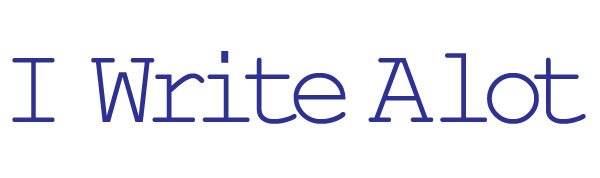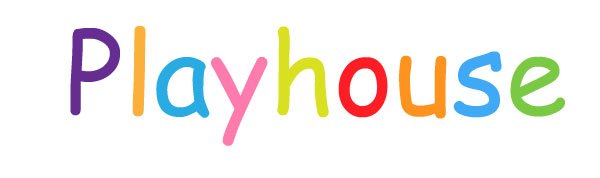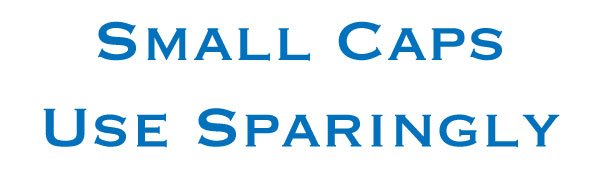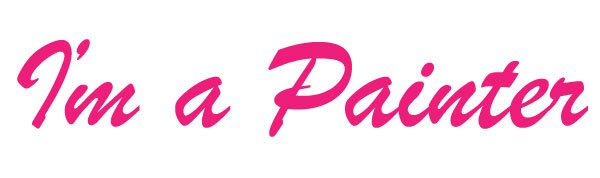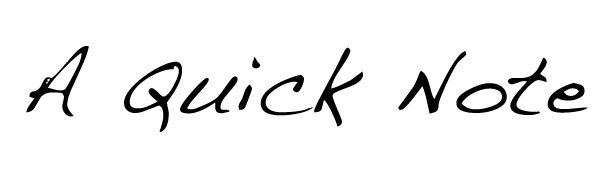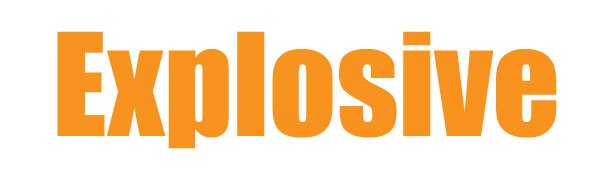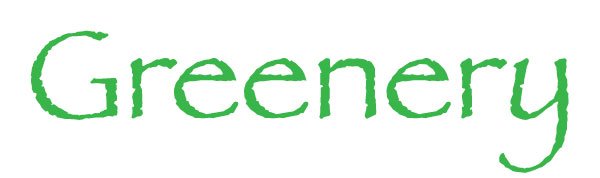
Horrible Fonts and Better Alternatives
Horrible fonts are everywhere. You seem them on a daily basis. Someone has downloaded one of these horrible fonts from a site. They decided to use them in their logo or their design work, and it makes you cringe. If you see the type and think to yourself “Those are horrible fonts, I can do much better!” You aren’t alone. There are other designers that feel the same way. Here are just a few horrible fonts that really make me want to scream when I see them. I also provided alternatives under each one so you can escape with dignity. Most can be downloaded for free, or if you have the Adobe Software, it is included within the software.
Papyrus
If I see this font used one more time for an Egyptian theme or for an all natural product or health spa, I am going to lose my lunch. I hate this font with such a passion that I deleted it from my system. I even recently saw it used for a movie title for a film that I know had a decent budget. There are much more imaginative fonts out there with an organic feel. Or better yet, here’s an idea: if you are creating a logo for an organic company, create your own from scratch. You are creating an identity, not a cliche or embarrassment. This is one of the most horrible fonts out there.
Alternatives: Try MothproofScript, Kingthings Calligraphica, Trajan
Comic Sans
I don’t know and I do not care who designed this font, but stop using it in designs! It is quirky, malformed and is not a good choice for commercial work. If you are trying to create a logo for a children’s product, there are tons of better suited fonts out there. This font doesn’t even look good when used in comics. This is considered by most designers as one of the most horrible fonts.
Alternatives: Try Wonder Comic, Action Man, Komika Axis
Helvetica
Okay, I know I will catch some flack for this one. I love the font, I really do. It is beautiful in its design and works well for certain applications, such as signage and so on, but not for everything else under the sun. When I see this font used in a movie poster, or for a generic product label with a simple color slapped on it, I just want to scream. How does Helvetica help to sell your product? What have to done to the typeface to make it suit your product? If your have altered it to make it your own, so be it, but stop using Helvetica as a catch-all or safety net for your logo work. There is no “always acceptable” answer. The horror in this one isn’t necessarily the look, its the extreme overusage.
Alternatives: Univers, Futura, Frutiger, Akzidenz-Grotesk
Courier
Who on earth thinks this is a convincing typewriter font? I have seen entire websites that use this font to mimic a typewriter concept. Anyone can go on dafont.com and find a much more suitable typewriter font. The are plenty that are way more convincing than Courier. The stroke needs to be thicker and less consistent to be a convincing typewriter font.
Alternatives: Try Pro Font Windows, Latin Modern Mono, Bitstream, Special Elite
Times
Despite being the default on Word, Times is a decent font, but in the same way that Helvetica is not a catch-all, neither is Times. I can’t think of a single reason to use Times for your Serif font needs when there are others out there that are more interesting, and have better reasons to use them. Helvetica is a good typeface for body copy, as well as Garamond. Futura can work well depending on the application, but stop over using Times.
Alternatives: Try Sabon, Jenson, Adobe Garamond Pro
Bank Gothic and Copperplate
I hate these fonts as well. Using all caps in just about anything is a no-no and small caps is annoying to read. Both of these fonts are difficult to read. All caps and small caps make a word so hard to read, and the spacing breaks up each word too much. Talk about a design nightmare! You definitely don’t want to use these typefaces for body copy, but I couldn’t imagine confidently using them in a title or display situation effectively either. it seems like everyone loves to use Bank Gothic for anything to do with Sci-fi.
Alternatives: Try Stratum Black, FF DIN, Orbitron
Impact
This font is almost too much to handle. It is so incredibly thick, with a tall x-height, that is overpowers most designs. I see it way too often in titles and headers, and can actually be difficult to read. I like Trade Gothic or News Gothic much better. They seem more controlled and give your the same amount of impact, but without carrying too much weight. Impact seems to be bloated and too weighty.
Alternatives: Try Interstate, Franklin Gothic, Coda